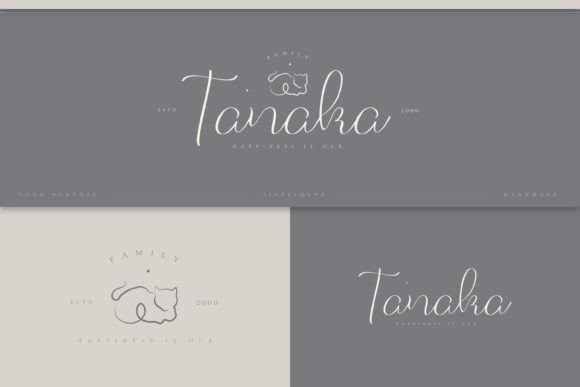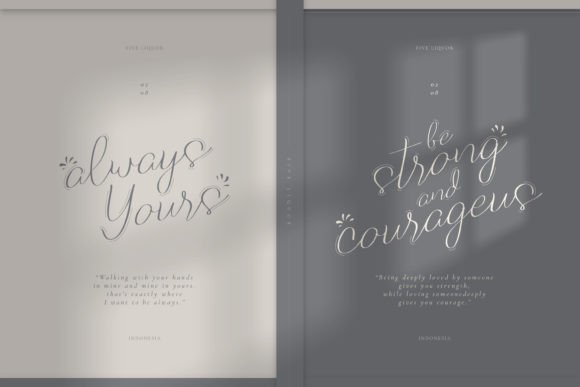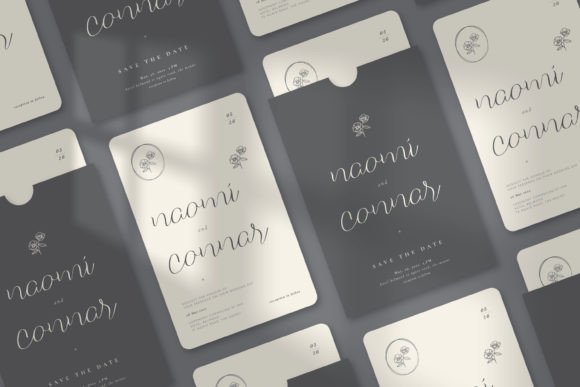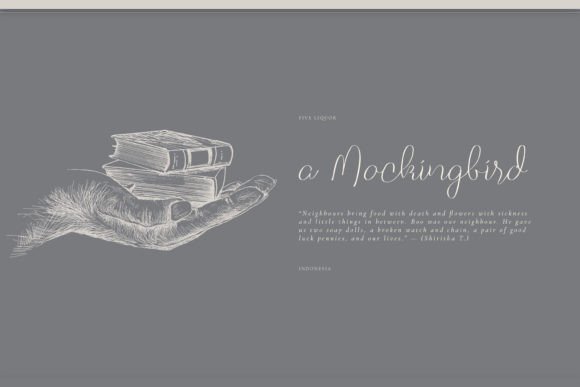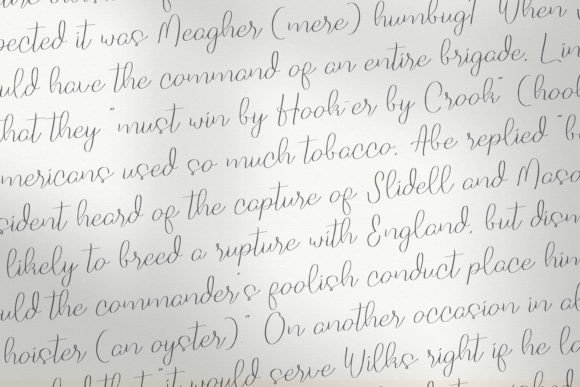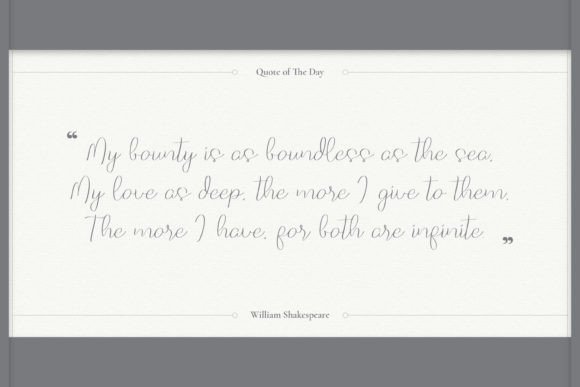
Introduction to Five Liquor Font
Five Liquor is an exquisite handwritten font, masterfully designed to become a true favorite.
Key Features of Five Liquor Font
Why Choose Five Liquor Font?
Five Liquor Font offers exceptional quality and versatility, making it a valuable addition to your design toolkit. Whether you’re creating for personal projects or commercial use, Five Liquor Font delivers professional results.